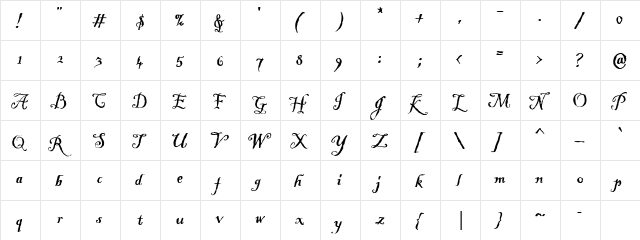
CK Opa's Hand Regular
Design Context for CK Opa's Hand Typeface
CK Opa's Hand brings a calligraphic fluidity to the page — its connecting strokes and expressive curves give it an unmistakably human quality.
Font Pairing: Combine CK Opa's Hand with a simple geometric sans for maximum contrast — the tension between flowing curves and clean structure is a classic typographic pairing.
Pro Tip: Use CK Opa's Hand for short runs of text — names, titles, or taglines. Extended body copy in script faces tires the eye quickly.